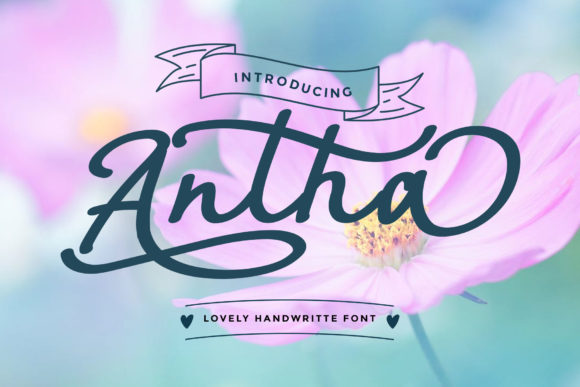
Introducing Antha Font: Elevate Your Designs with Elegance and Timeless Style
Are you on the hunt for a font that exudes elegance, sophistication, and a touch of timeless charm? Look no further than Antha Font, a stunning flowing handwritten font that is sure to capture your heart. With its incredibly distinct style, Antha Font is the perfect addition to your favorite projects, allowing you to create spectacular designs that stand out from the crowd.
The Distinctive Charm of Antha Font
Antha Font is described by its elegant touch, which sets it apart from other fonts in its category. Its flowing, handwritten style is both classic and modern, making it versatile enough to be used in a wide range of design projects. Whether you’re working on a branding project, a wedding invitation, or a blog post, Antha Font is sure to add a touch of sophistication and glamour.
One of the standout features of Antha Font is its incredibly distinct and timeless style. Unlike other fonts that may come and go with the latest design trends, Antha Font has a classic appeal that will never go out of style. Its elegant lines, curves, and swashes make it a joy to use, and its versatility ensures that it can be paired with a wide range of other fonts and design elements.
Another advantage of Antha Font is that it is PUA (Private Use Area) encoded, which means that you can access all of the glyphs and swashes with ease. This makes it easy to customize your designs and add your own personal touch. With PUA encoding, you can access a wide range of alternative characters, ligatures, and swashes, allowing you to create unique and eye-catching designs that reflect your personal style.
Antha Font is perfect for designers and crafters who are looking to add a touch of elegance and sophistication to their projects. Whether you’re working on a commercial project or a personal craft project, Antha Font is sure to inspire your creativity and help you to create stunning designs. With its versatility and ease of use, Antha Font is an excellent choice for a wide range of design projects, including:
- Blog posts and social media graphics
- Signs and posters
- Craft projects, such as card making and scrapbooking
Why Choose Antha Font?
So why choose Antha Font over other fonts on the market? Here are just a few reasons why Antha Font stands out:
- Elegant and sophisticated style: Antha Font has a timeless elegance that is sure to elevate your designs.
- Versatility: Antha Font can be used in a wide range of design projects, from commercial projects to personal craft projects.
- PUA encoded: With PUA encoding, you can access a wide range of glyphs and swashes with ease.
In conclusion, Antha Font is a stunning flowing handwritten font that is sure to capture your heart. With its elegant touch, incredibly distinct style, and PUA encoding, Antha Font is the perfect addition to your favorite projects. Whether you’re a designer or crafter, Antha Font is an excellent choice for anyone looking to add a touch of sophistication and elegance to their designs. So why wait? Fall in love with Antha Font today and start creating spectacular designs that stand out from the crowd!